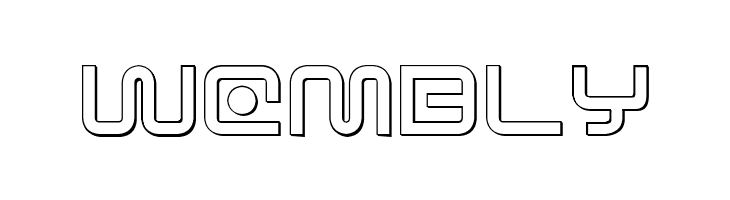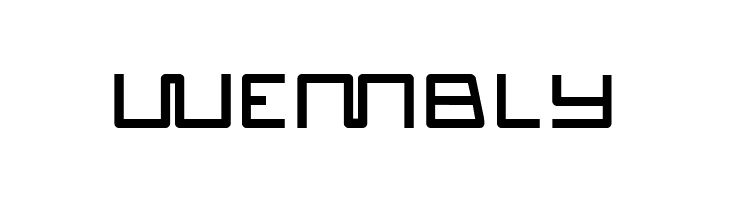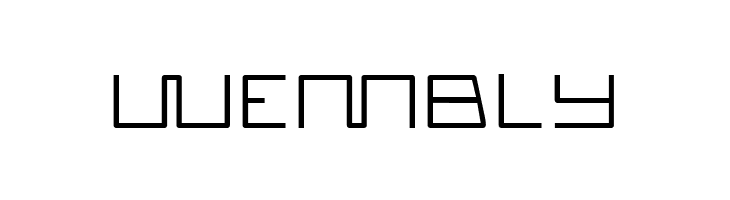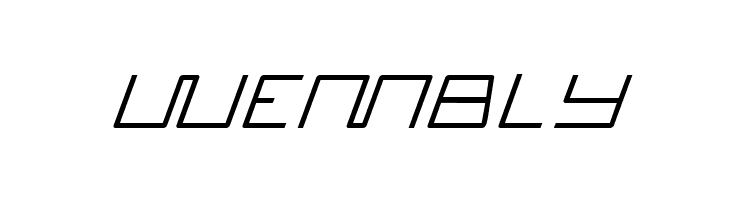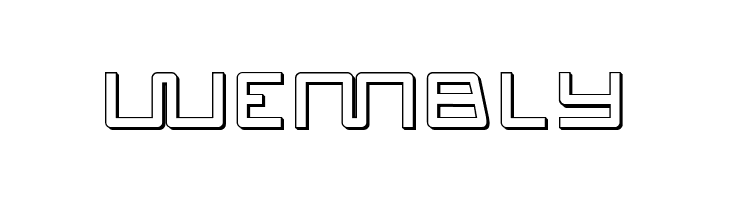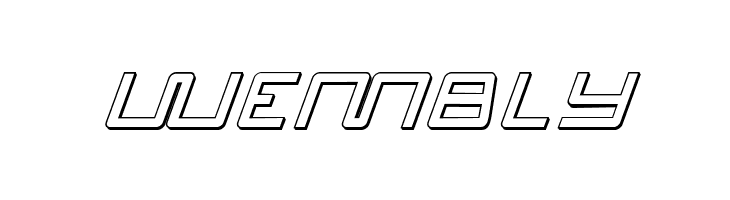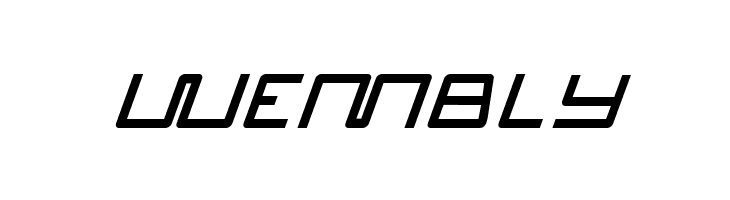
El Abogado Loco Font
A futuristic, geometric outline font with clean lines and rounded edges.
A bold, geometric font with a futuristic and technical design.
A futuristic, geometric font with clean, angular lines and a modern aesthetic.
A futuristic, italicized font with angular, geometric letterforms.
A futuristic, geometric font with a 3D effect and bold outlines.
A futuristic, 3D geometric font with italicized, angular letterforms.
A bold, italicized font with a futuristic and angular design.